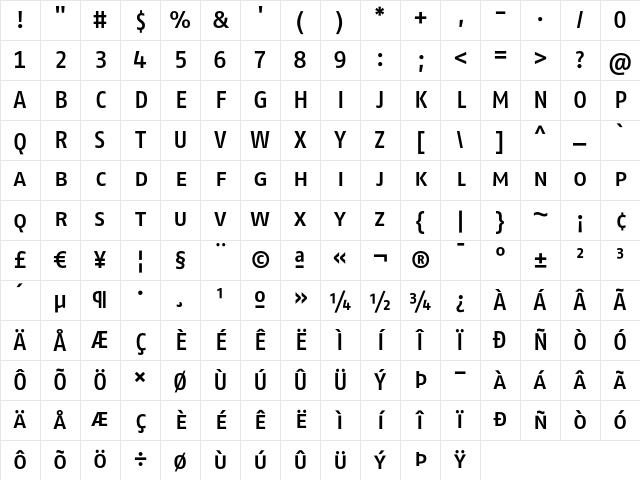
Complete FagoNoTf MediumCaps glyph index. Displaying only characters natively supported by FagoNoTf MediumCaps font.
FagoNoTf is a composed and adaptable typeface that performs quietly and consistently across a wide range of design contexts.